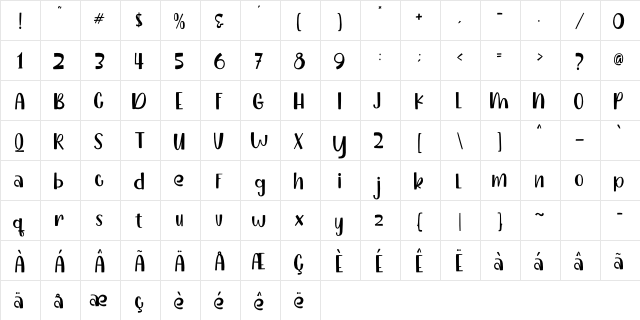
Dogmeal Regular
| Foundry | Allmostudio |
| Designer | Muhammad Nur Alamsyah |
Design Context for Dogmeal Typeface
Dogmeal is a composed and adaptable typeface that performs quietly and consistently across a wide range of design contexts.